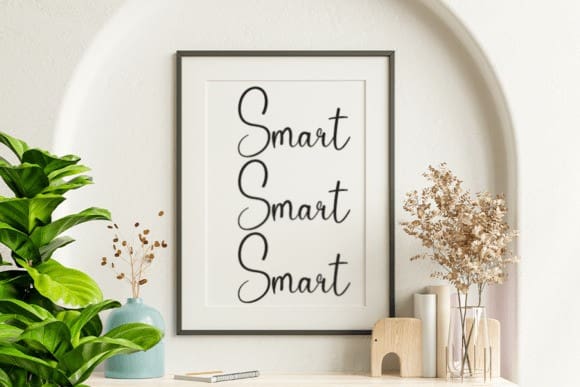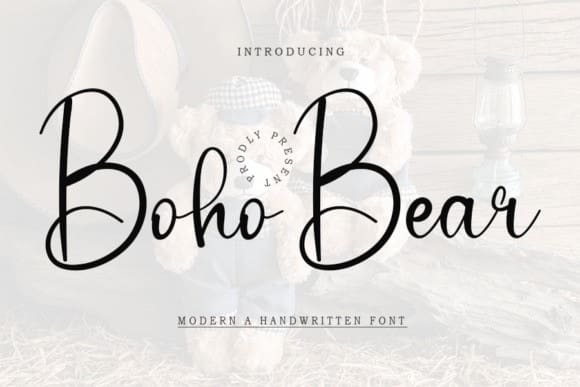
Boho Bear Font
Boho Bear Font is a fun and friendly handwritten font. Whether you’re using it for crafts, digital design, presentations, or making greeting cards, this font has the potential to become your favorite go-to font, no matter the occasion!